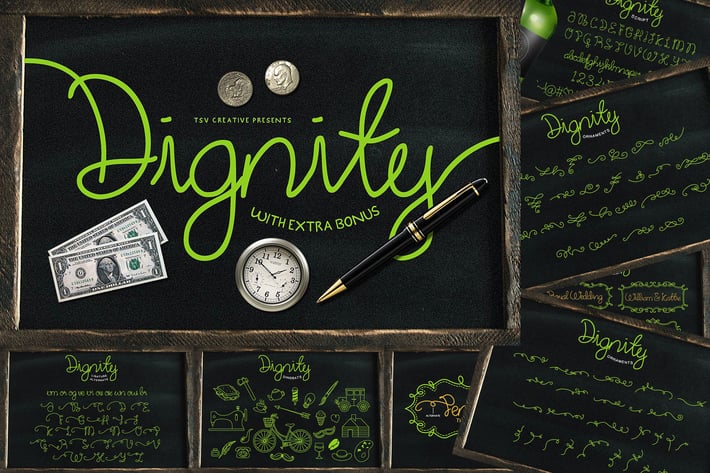
Dignity Monoline Cursive Script Font
We proud to release DIGNITY
Dignity is monoline cursive script with opentype features, extra bonus fonts & goodie bag!
Feature :
Numeric
Ligatures
Alternates
Punctuations
Back Swashes
Ornaments
Dingbats